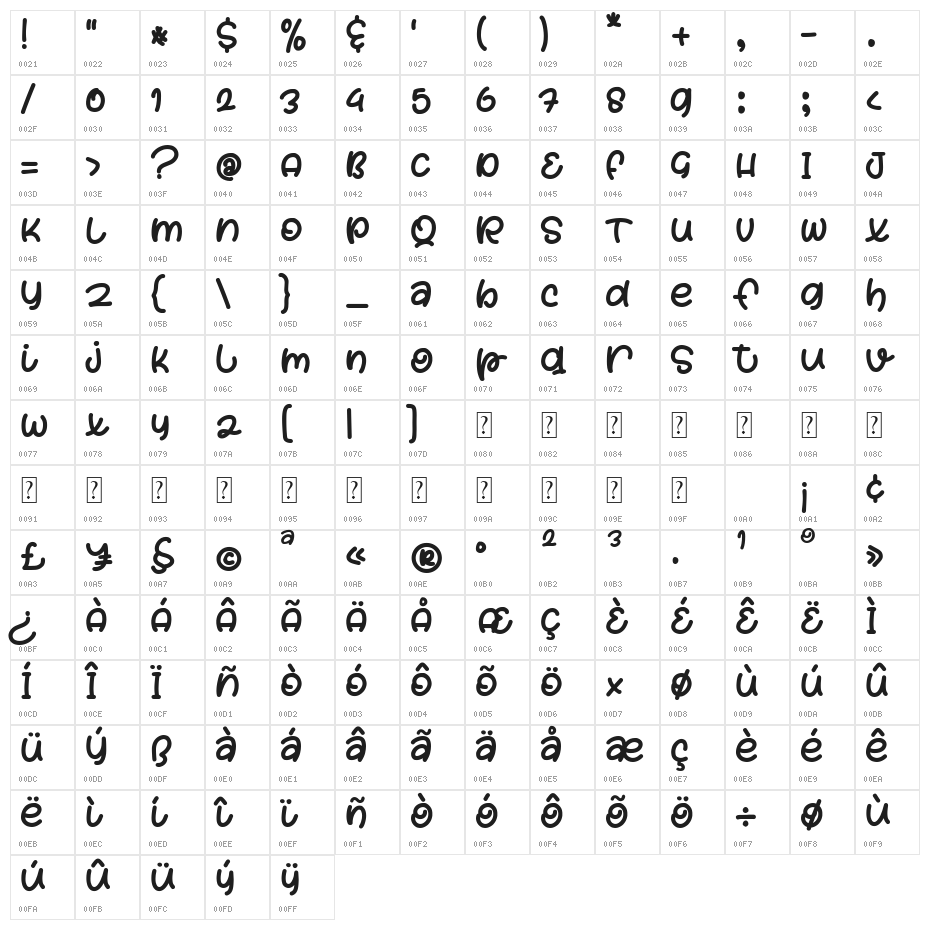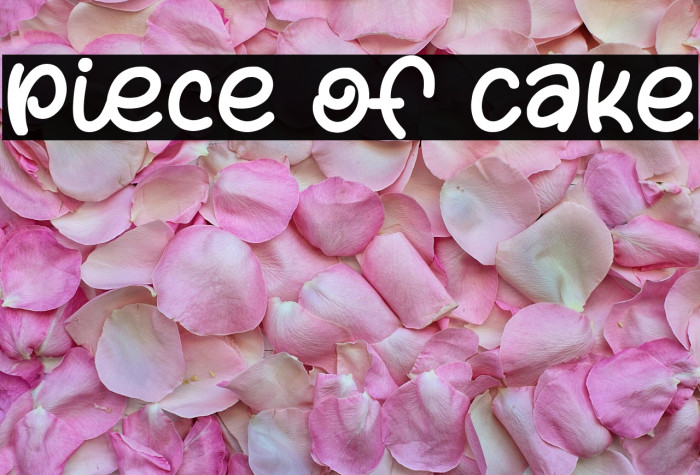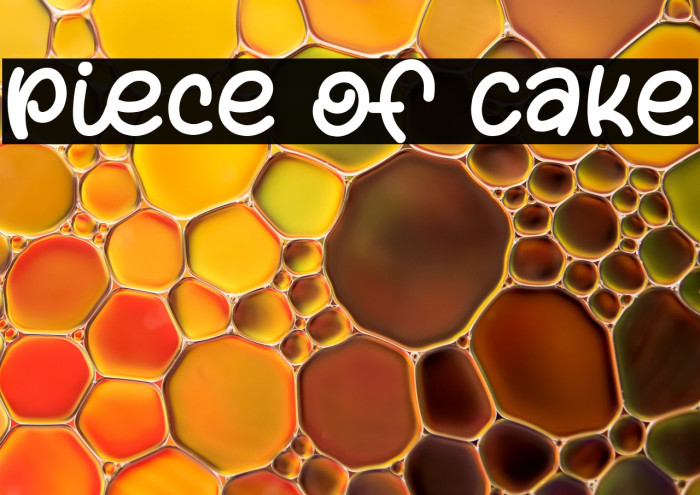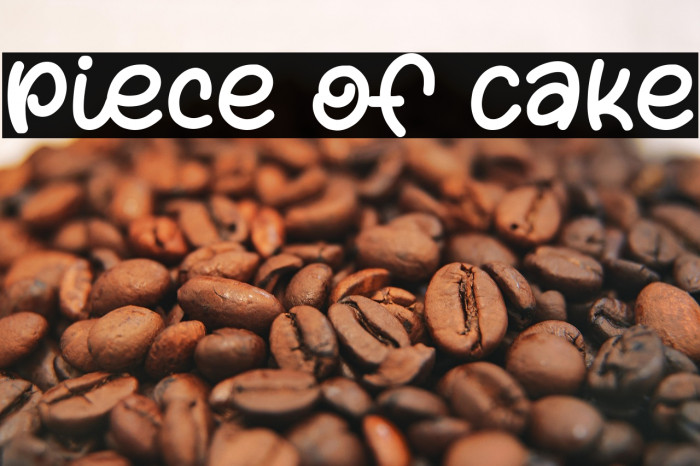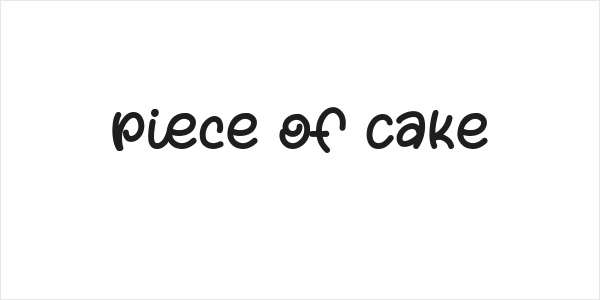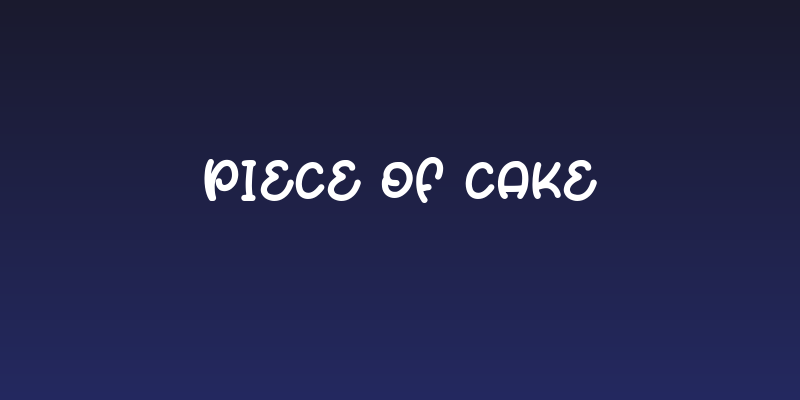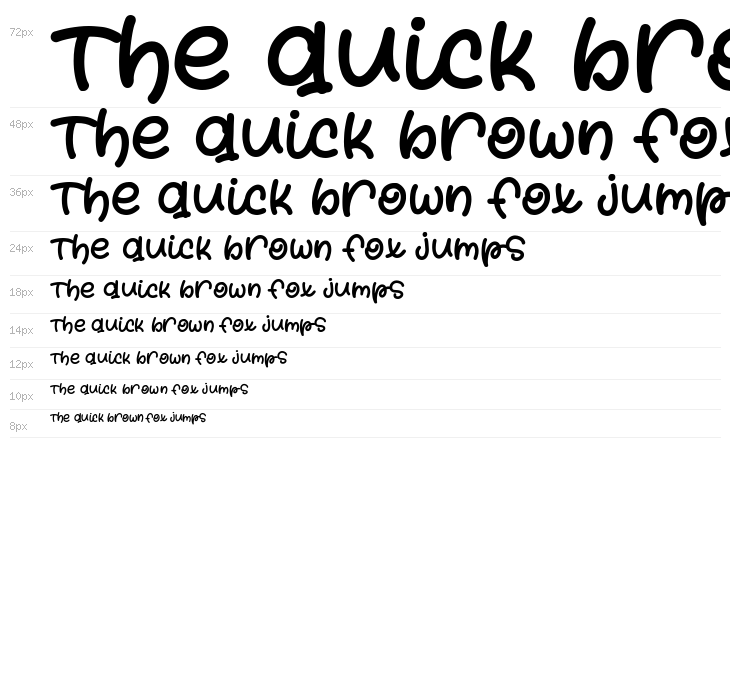
Piece of Cake Font
Piece of Cake Description
This playful and whimsical font features rounded, bold characters with a hand-drawn feel. The letters are slightly irregular, giving it a casual and friendly appearance. The strokes are consistent in weight, providing a uniform look across all characters. The font includes both uppercase and lowercase letters, numerals, and a variety of special characters, making it versatile for different uses. Its design is reminiscent of handwriting, with a smooth flow and rounded edges that enhance its approachable style.
| Overall Style | Casual and playful |
| Use Case | Headlines, Logos, Informal text |
| Proposed Projects | Ideal for children's books, playful branding, greeting cards, and informal invitations. |